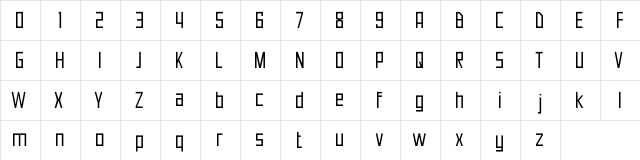
Neuborn Regular Regular
| Designer | HIRO |
Design Context for Neuborn Regular Typeface
Neuborn Regular takes a measured approach to typography — its balanced proportions and neutral character make it a reliable workhorse for both digital and print work.